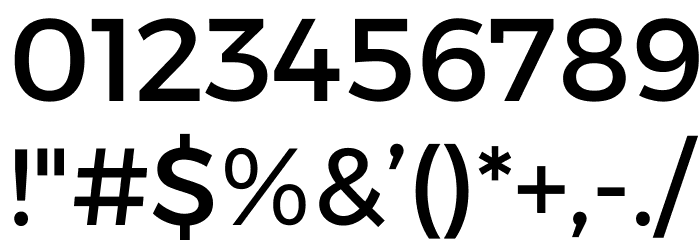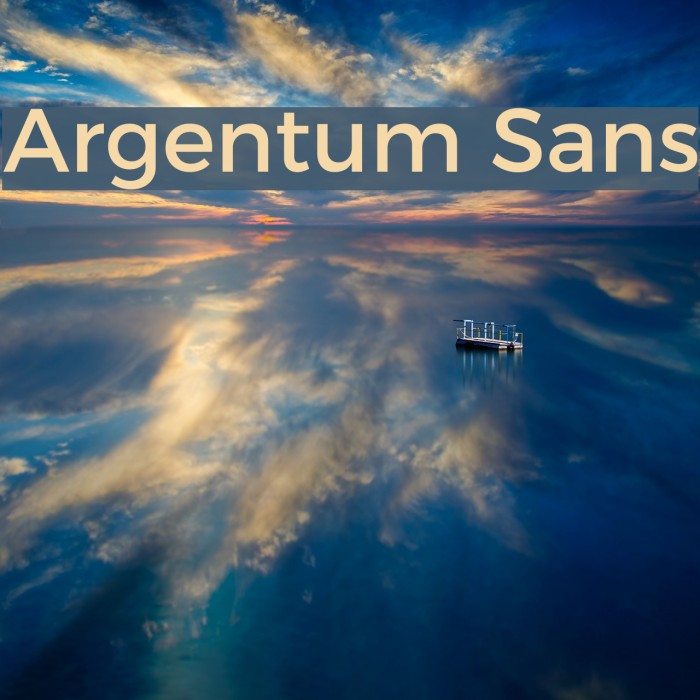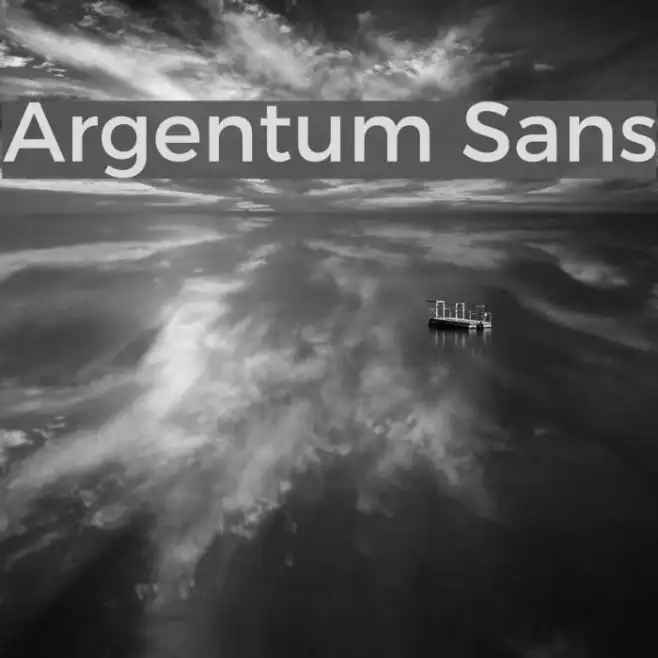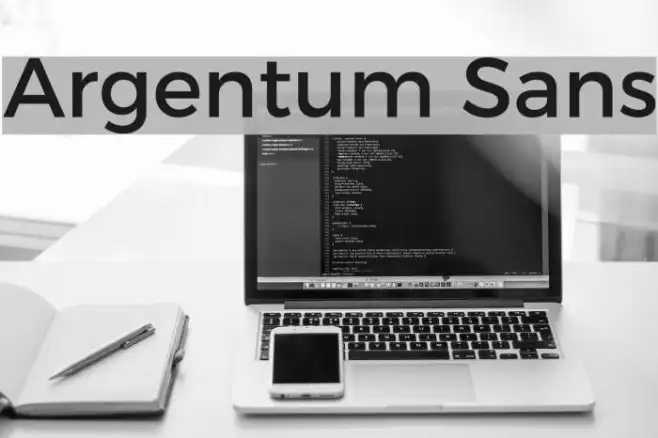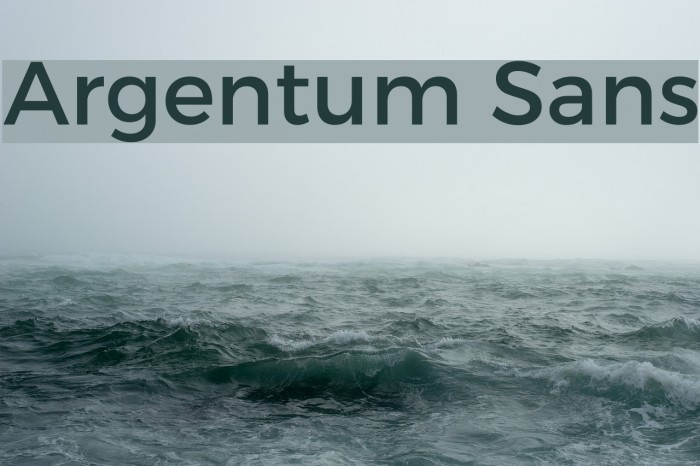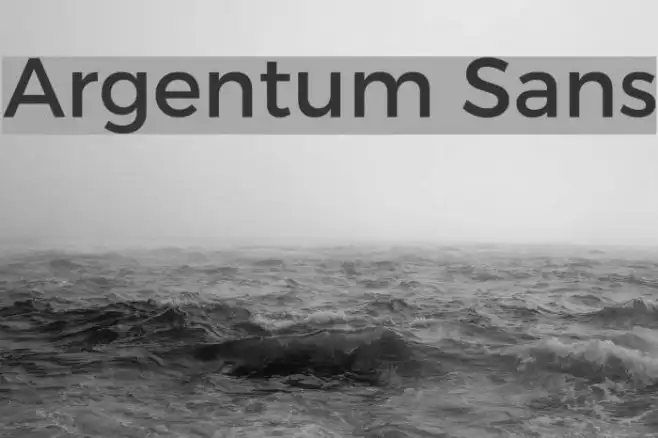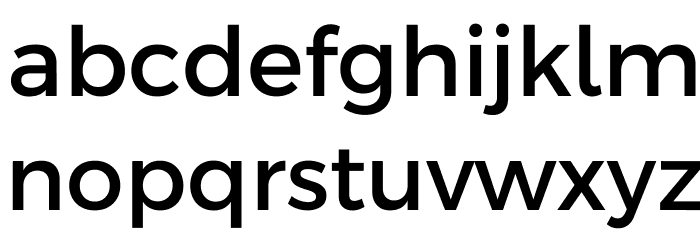
Argentum Sans Font
Argentum Sans Description
This font features a clean and modern sans-serif design, characterized by its geometric shapes and uniform stroke widths. The uppercase letters are bold and assertive, while the lowercase letters maintain a consistent and harmonious flow. The numerals are clear and easily distinguishable, making them suitable for various applications. Special characters are well-defined, adding versatility to the font's use. The overall appearance is sleek and professional, making it ideal for contemporary design projects.